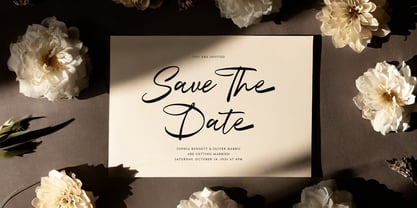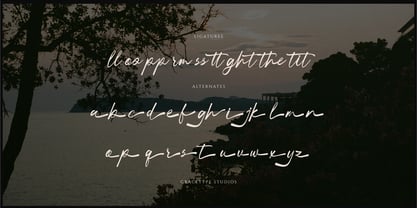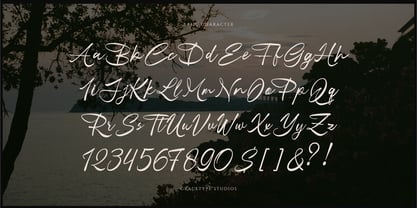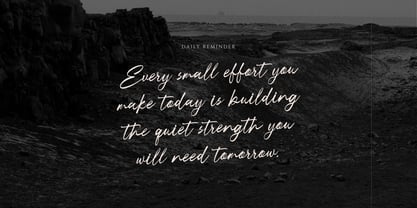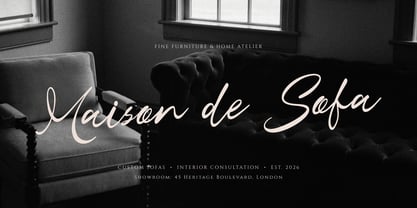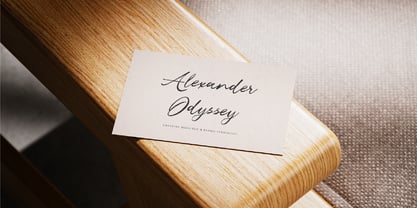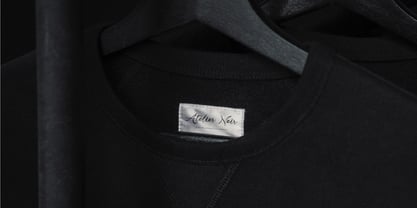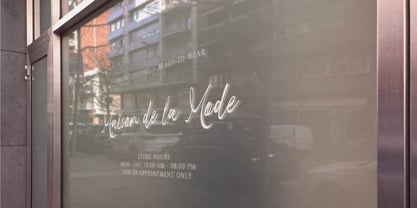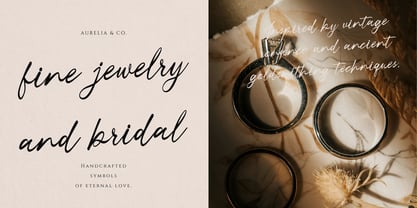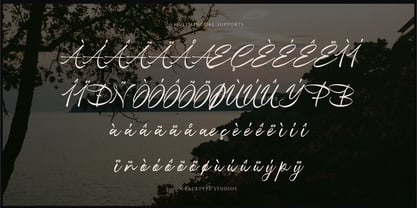
Dialetika
por Tini Fitriani
La familia tipográfica Dialetika y publicada por Tini Fitriani. Dialetika contiene 2 estilos y opciones de paquete familiar. Más información sobre esta familia
Dialetika | Handwritten Script, from Gracetypestudio, suitable for any projects such as: logos, branding projects, homeware designs, product packaging, mugs, quotes, posters, shopping bags, t-shirts, book covers, name card, invitation cards, greeting cards, label, photography, watermark, special events, and all your other lovely projects that need a Script taste.